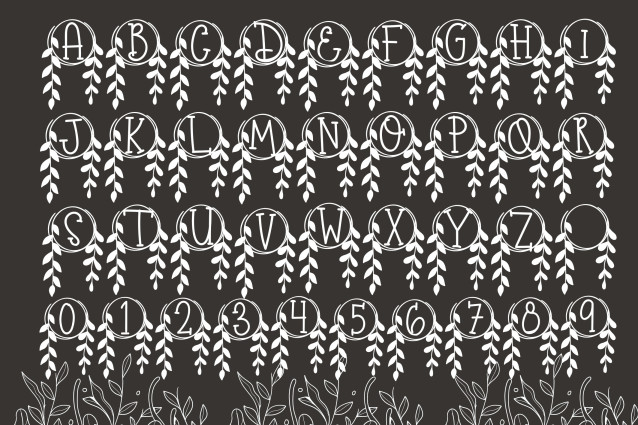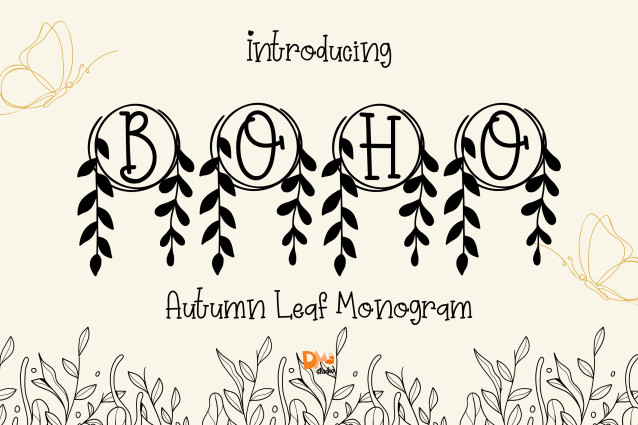
Autumn Leaf Monogram Font
Autumn Leaf Monogram Font is a graceful serif monogram font featuring elegant uppercase letters adorned with decorative autumn leaves. Designed to capture the cozy, rustic charm of fall, this font blends natural warmth with classic structure—ideal for personalized gifts, wedding signage, seasonal decor, and custom branding projects.